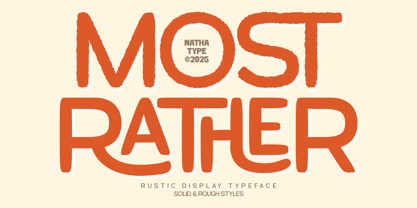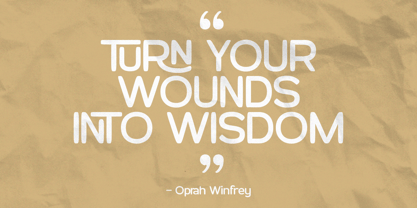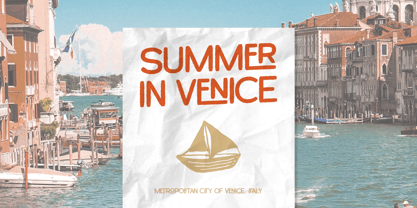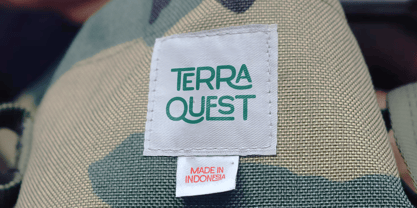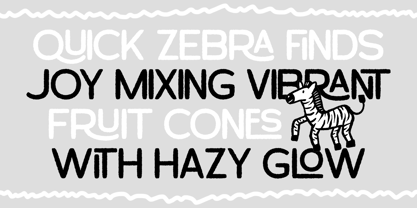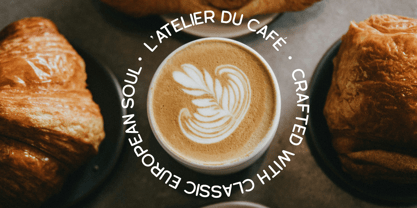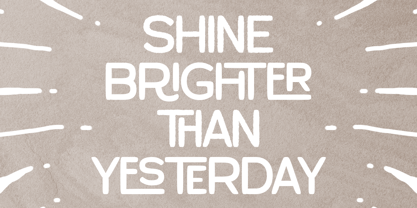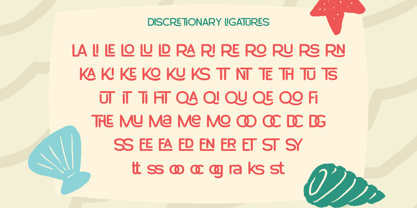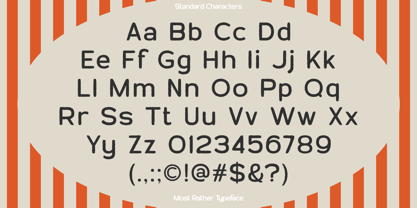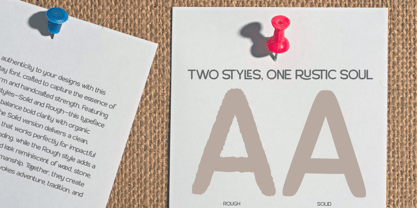
Most Rather
The Most Rather Font Family was designed by Donis Miftahudin and published by Nathatype. Most Rather contains 2 styles and family package options. More about this family
Most Rather is a rustic display font with a unique organic character design. Instead of using straight, rigid lines, this font is drawn with natural, uneven outlines, giving it an authentic, and slightly imperfect feel that captures the essence of hand-drawn artistry. With a light to medium weight, Most Rather maintains readability while adding a touch of rustic elegance to any project. Designed for creatives who love natural textures and vintage-inspired aesthetics, Most Rather brings a sense of personality and warmth to your typography. In addition, enjoy the features here. Features: Ligatures Multilingual Supports PUA Encoded Numerals and Punctuations Most Rather fits in branding, packaging, quotes, logos, posters, and many more designs. Find out more ways to use this font by taking a look at the font preview. Thanks for purchasing our fonts. Hopefully, you have a great time using our font. Feel free to contact us anytime for further information